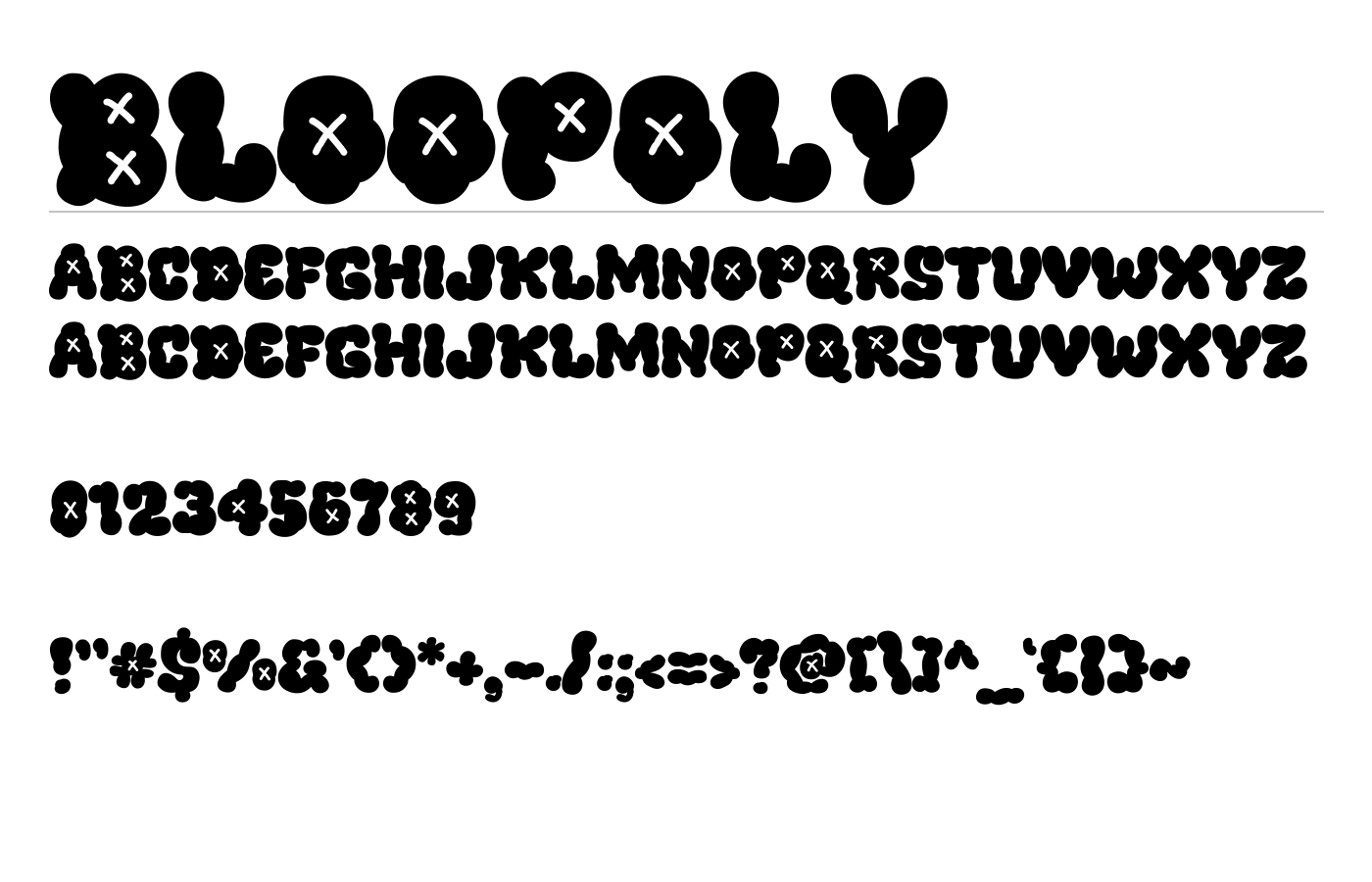
Bloopoly is a bold, playful display font with thick, rounded letterforms that create a bubbly, whimsical feel. Its unique design features irregular shapes and quirky details like cross marks inside many characters, making it ideal for fun, eye-catching logos, children's materials, or creative posters. This font adds a friendly, energetic vibe and works best in headline or decorative uses where a strong, joyful personality is needed.
Bloopoly Font
About Bloopoly Font
| Font family | Bloopoly Font |